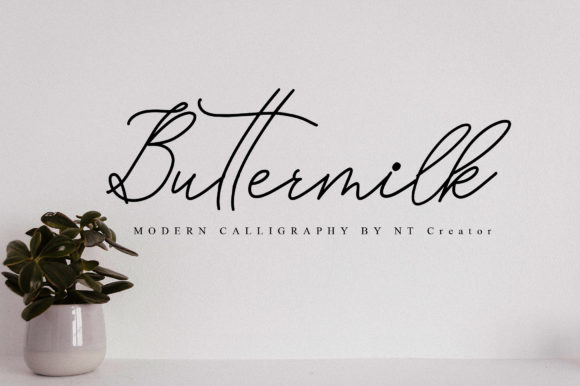
The Elegant Charm of Buttermilk Font: A Designer’s Delight
I’ll never forget the time I was working on a wedding invitation project, and my client specifically asked for a font that exuded elegance and sophistication. I scoured the internet, tried out countless fonts, but nothing seemed quite right. That was until I stumbled upon Buttermilk Font. ✨ This lovely script font has been a game-changer for me, and I’m excited to share its charm with you.
An Honest Review of Buttermilk Font
- ✨ Elegant and delicate script style that’s perfect for formal designs
- 🎨 Beautifully crafted to add a touch of sophistication to any design
- 🤝 Works well for a variety of design projects, from wedding invitations to branding materials
While Buttermilk Font is an excellent choice for many design projects, there are a few things to keep in mind: ⚠️
- 🤔 May not be the best choice for very casual or playful designs, as it can come across as too formal
- ⚠️ Limited availability of certain characters or glyphs, which may require some creative workarounds
The Backstory of Buttermilk Font
Buttermilk Font was designed by a talented type designer who’s passionate about creating beautiful, elegant fonts that inspire creativity. The font was crafted with love and care, using a combination of traditional techniques and modern digital tools. The result is a font that’s both timeless and modern, perfect for designers who want to add a touch of sophistication to their designs.
| Font Name | Buttermilk Font |
| Author | najmustsaqib.creator |
Q: What is Buttermilk Font best used for?
A: Buttermilk Font is best used for formal designs, such as wedding invitations, branding materials, and elegant stationery.